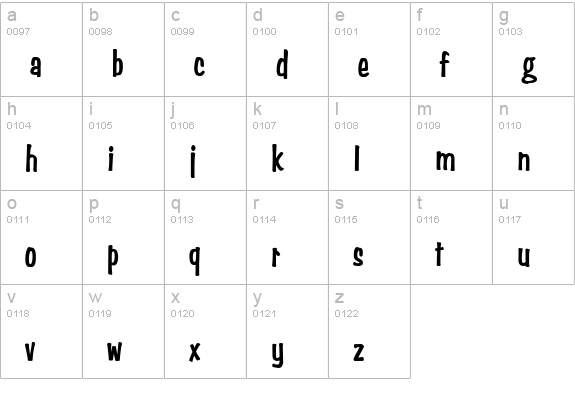
Simpson Condensed Heavy Normal is a heavy, high-impact, condensed-width variant in the Simpson typeface family \xE2\x80\x94 well suited to high-impact headlines, posters, and display advertising.
Simpson Condensed Heavy Normal is a bold and impactful font that commands attention with its strong and sturdy letterforms. This typeface exudes confidence and is perfect for making a bold statement in your designs. Its condensed nature adds to its versatility, allowing it to fit seamlessly into various layouts and compositions. With its thick and heavy strokes, Simpson Condensed Heavy Normal is ideal for headlines, titles, and any design that requires a strong visual impact. It offers a modern and sleek aesthetic that is sure to catch the eye of your audience. What makes Simpson Condensed Heavy Normal even more appealing is that it is available for free download at FontsMarket.com. This means that you can easily access and use this remarkable font in your projects without any cost. Whether you are a professional designer or a typography enthusiast, this font is a valuable addition to your collection. The clean and precise letterforms of Simpson Condensed Heavy Normal make it highly legible, even at smaller sizes. This makes it an excellent choice for various applications, including logos, branding, packaging, posters, and websites. Its versatility allows it to adapt to different design styles and create a visual impact that will leave a lasting impression. So, if you are looking for a bold and impactful font that is freely available to download, look no further than Simpson Condensed Heavy Normal. Visit FontsMarket.com today to discover and unleash the full potential of this powerful typeface in your designs.